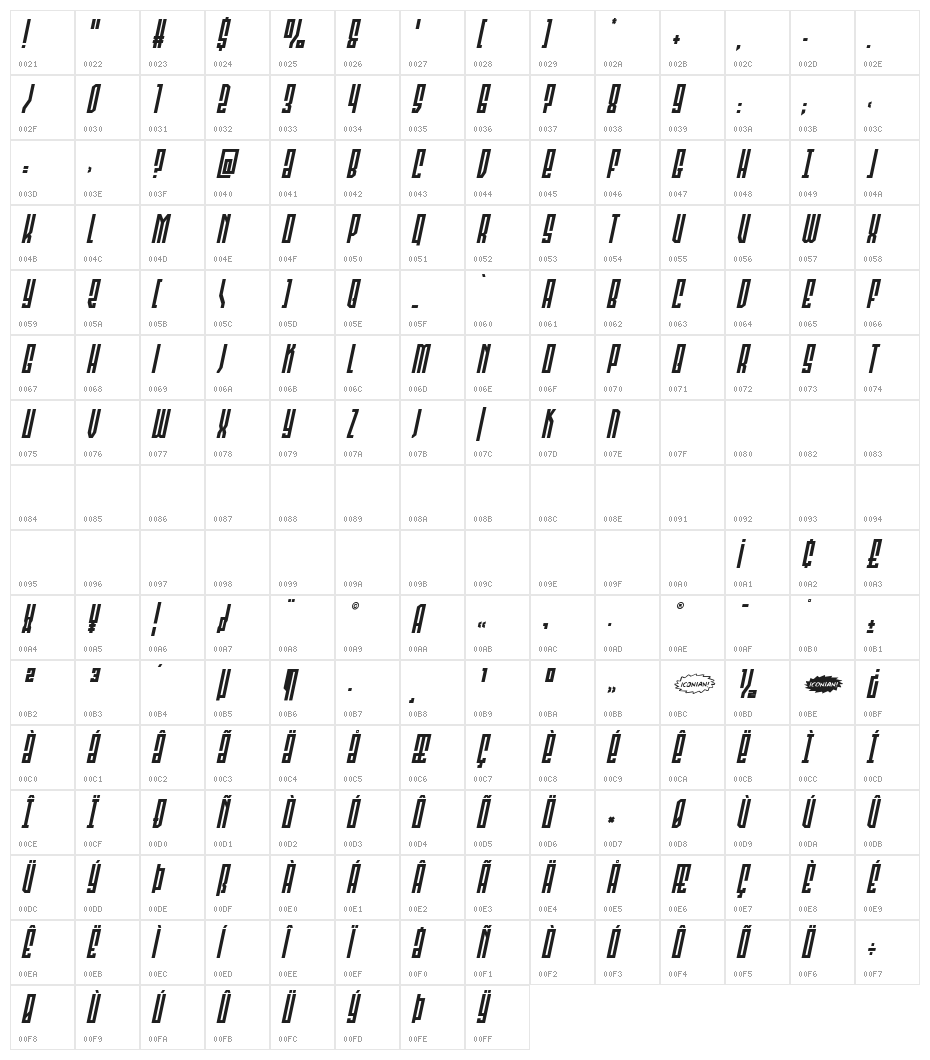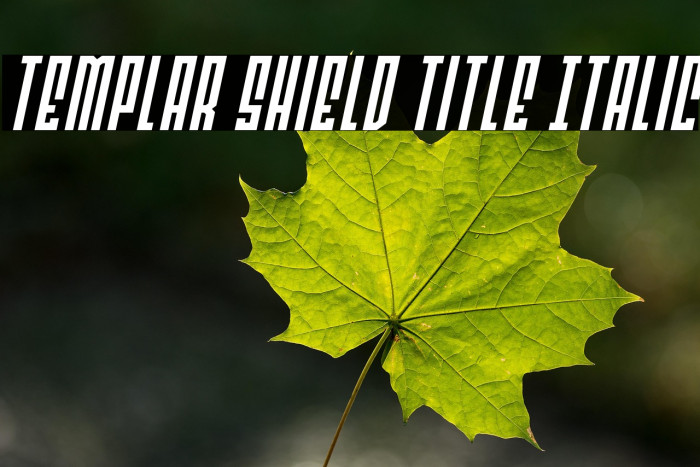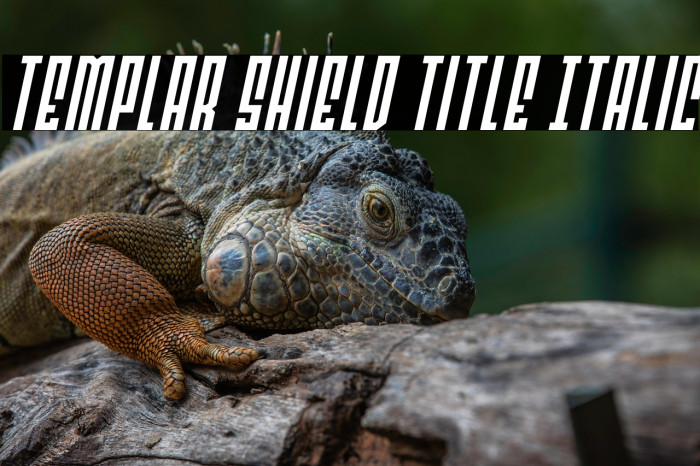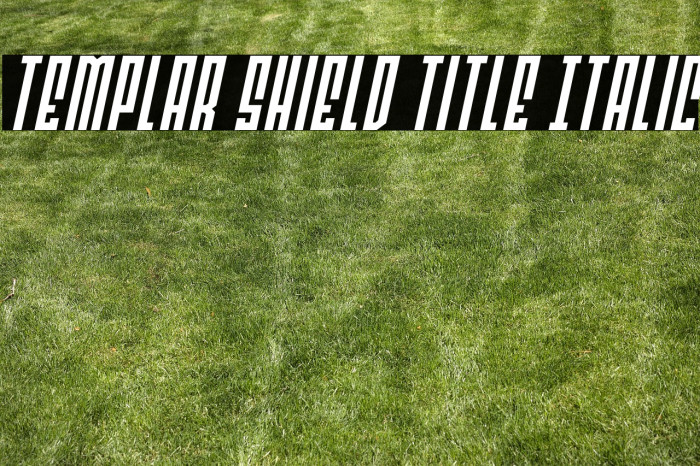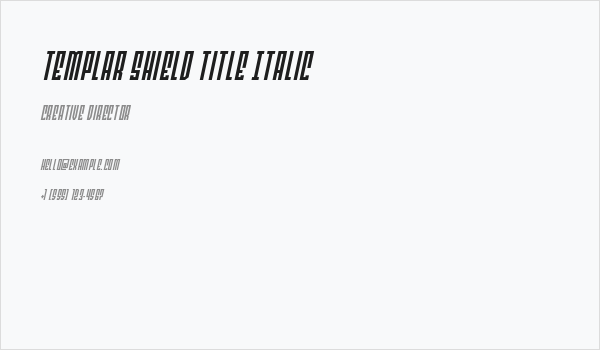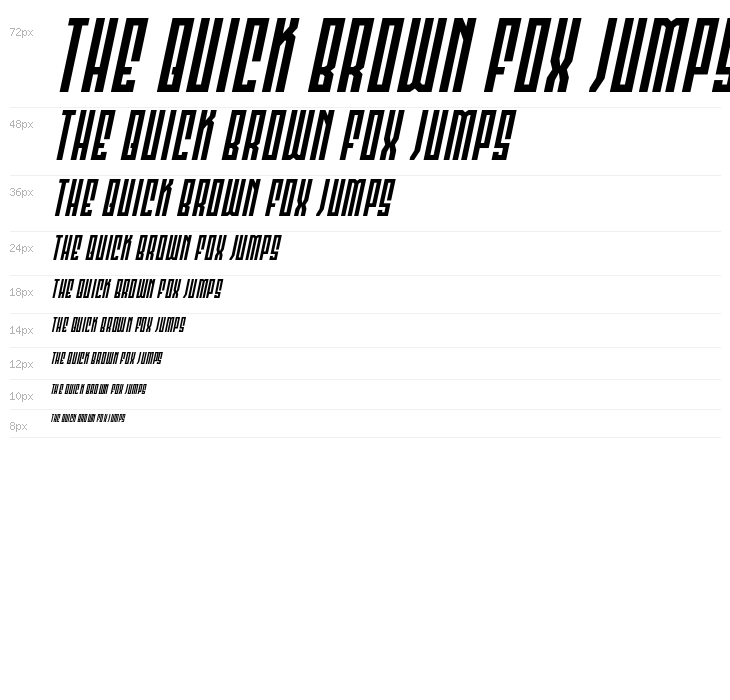
Templar Shield Title Italic Font
Templar Shield Title Italic Description
This font features a bold and italicized style with a strong, angular design that conveys a sense of strength and modernity. The characters are tightly spaced, enhancing the compact and impactful appearance. The uppercase letters are particularly striking, with sharp edges and a consistent slant that adds dynamism to the text. The numbers and special characters maintain the same bold and angular characteristics, ensuring uniformity across all elements. This font is ideal for making a statement, with its high contrast and distinctive style.
| Proposed Projects | Ideal for branding, headlines, posters, and any project requiring a strong, modern aesthetic. |